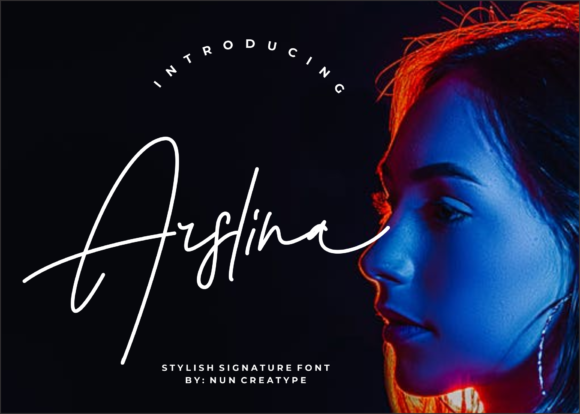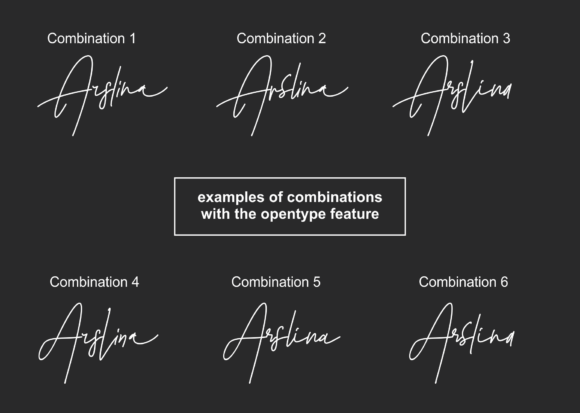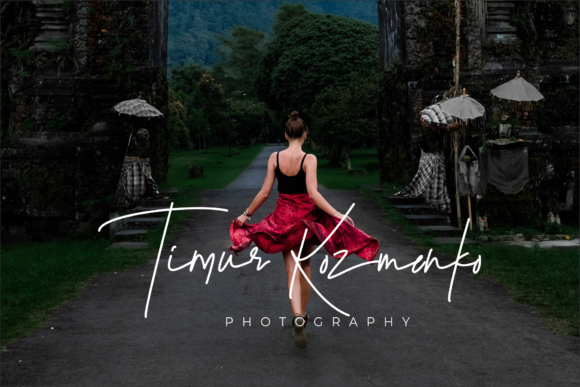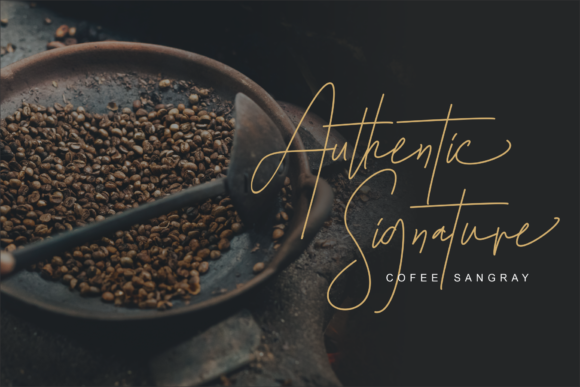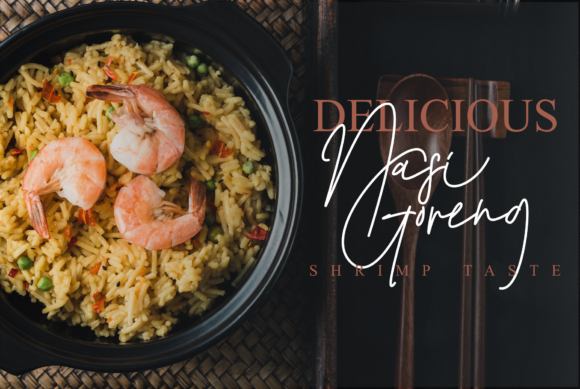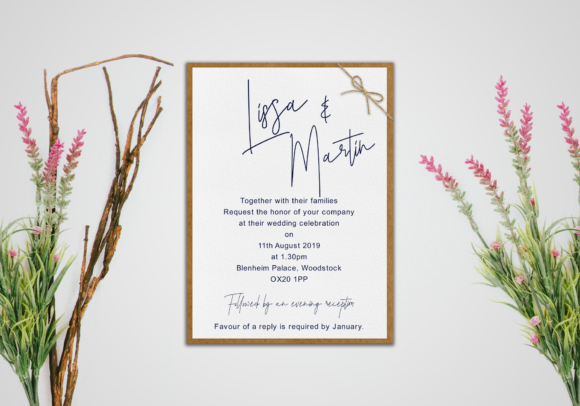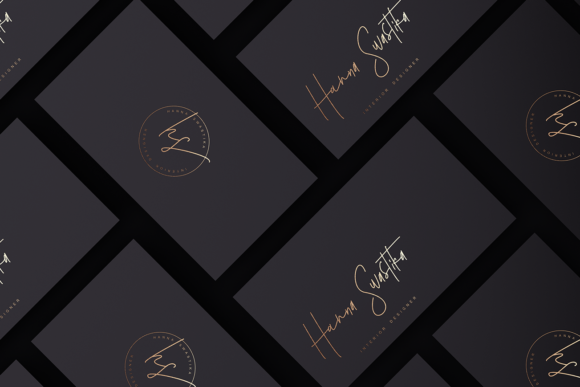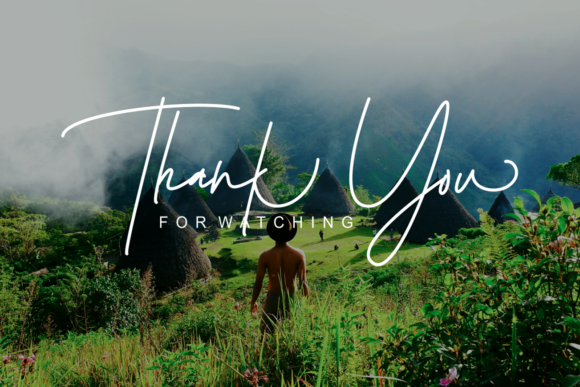
Arslina Font
About Arslina Font
Arslina is a gorgeously light and charming script, perfect for branding projects, logos, wedding designs and much more!